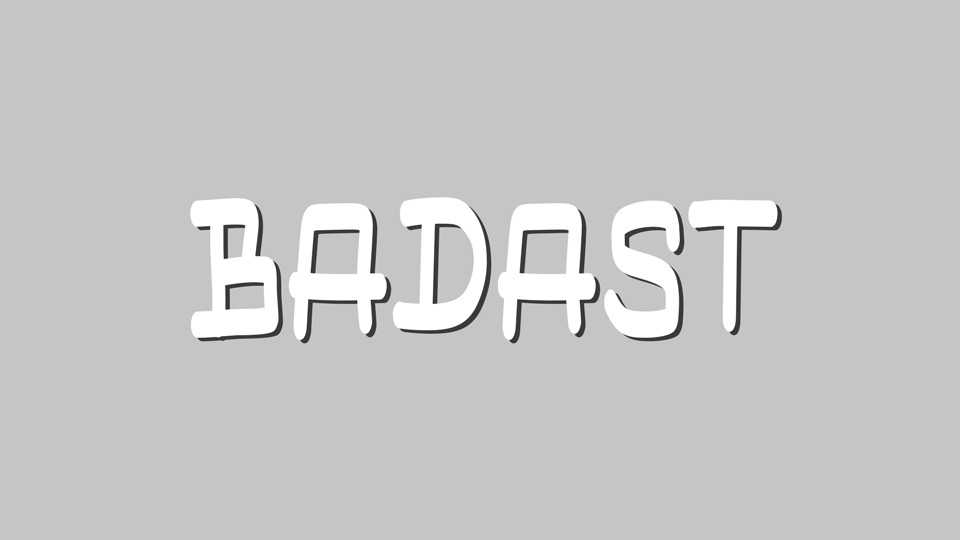
Badast Font › Fontesk – Download Grátis
Download Badast font, a handcrafted typeface filled with a bold yet fun vibe. Add a touch of strong personality to your designs with Badast font.